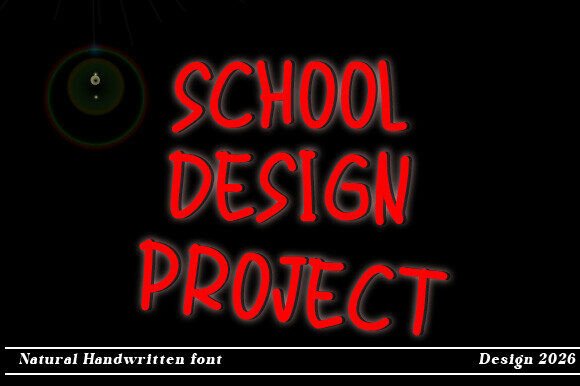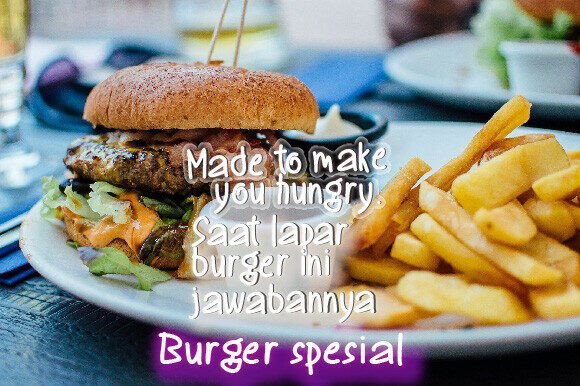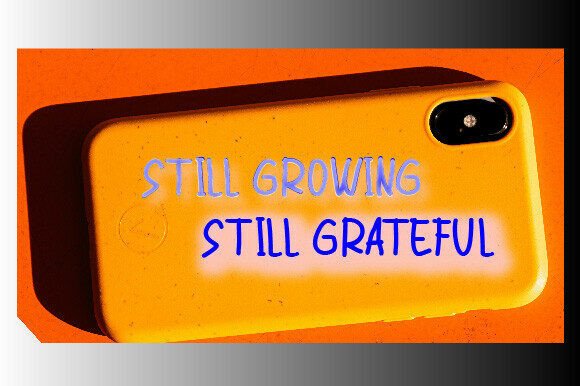
Introduction to Clasic Font
Clasic is a clean and straightforward natural handwritten font that prioritizes simplicity and readability.
It features a monolinear stroke with rounded terminals and high-reaching lowercase characters, giving it a friendly and modern aesthetic The font captures the effortless look of everyday handwriting while maintaining a structured, digital-ready form.